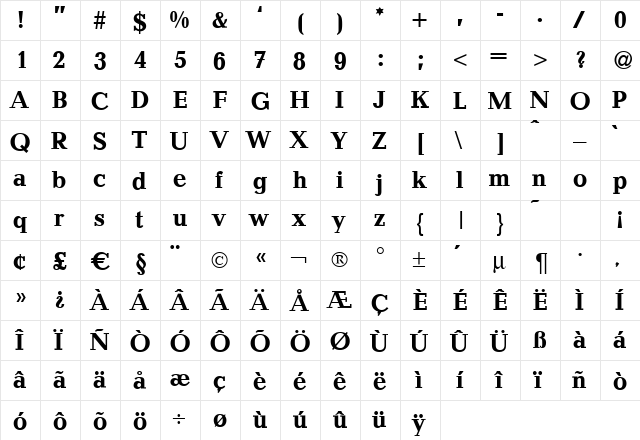
Quantity Bold Font Preview
Quantity Bold
Quantity Bold Font Details
Design Context for Quantity Typeface
Quantity offers clean, dependable letterforms without strong stylistic allegiance, making it a practical choice for designers who need flexibility. The heavy weight commands attention and anchors typographic hierarchies.
Pro Tip: Use Quantity in both headline and body roles to test its range before committing to a single application.